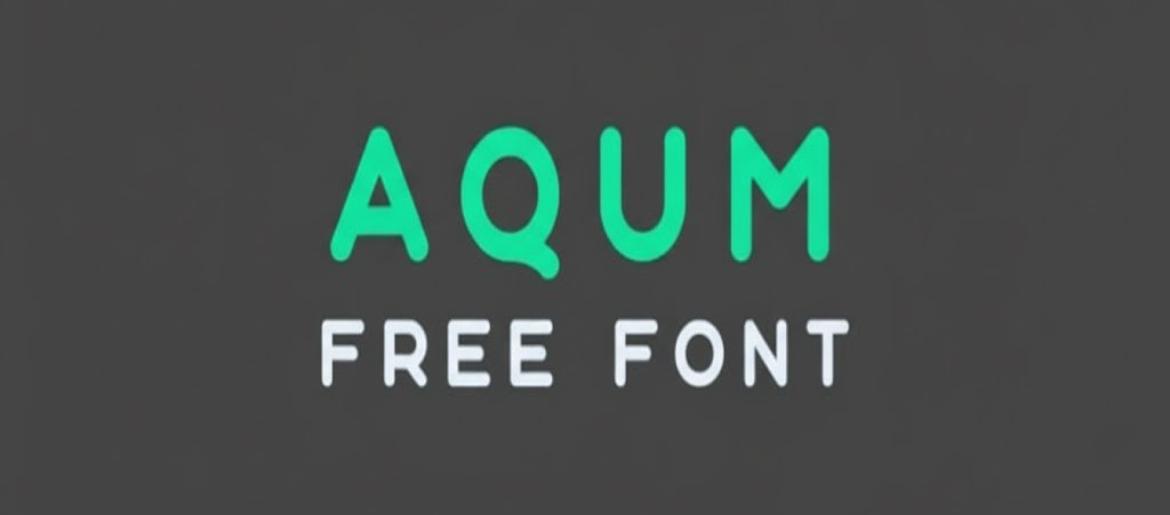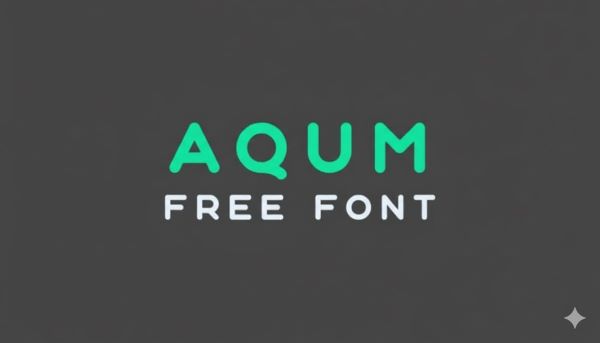
Aqum Font
Aqum Font is a modern display typeface featuring bold shapes and clean contemporary styling. It delivers strong visual impact, making it suitable for logos, branding, posters, packaging, and headline typography. Its distinctive character and balanced structure help designs stand out while fitting seamlessly into creative projects and curated free fonts collections for modern design use.